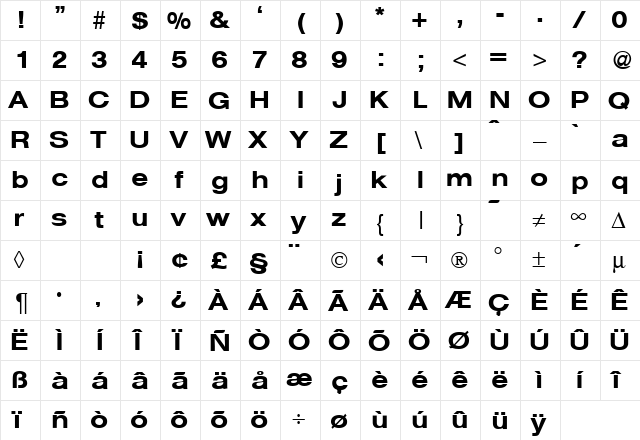
HegelExtendedMedium Regular
Design Context for HegelExtendedMedium Typeface
HegelExtendedMedium takes a measured approach to typography — its balanced proportions and neutral character make it a reliable workhorse for both digital and print work.